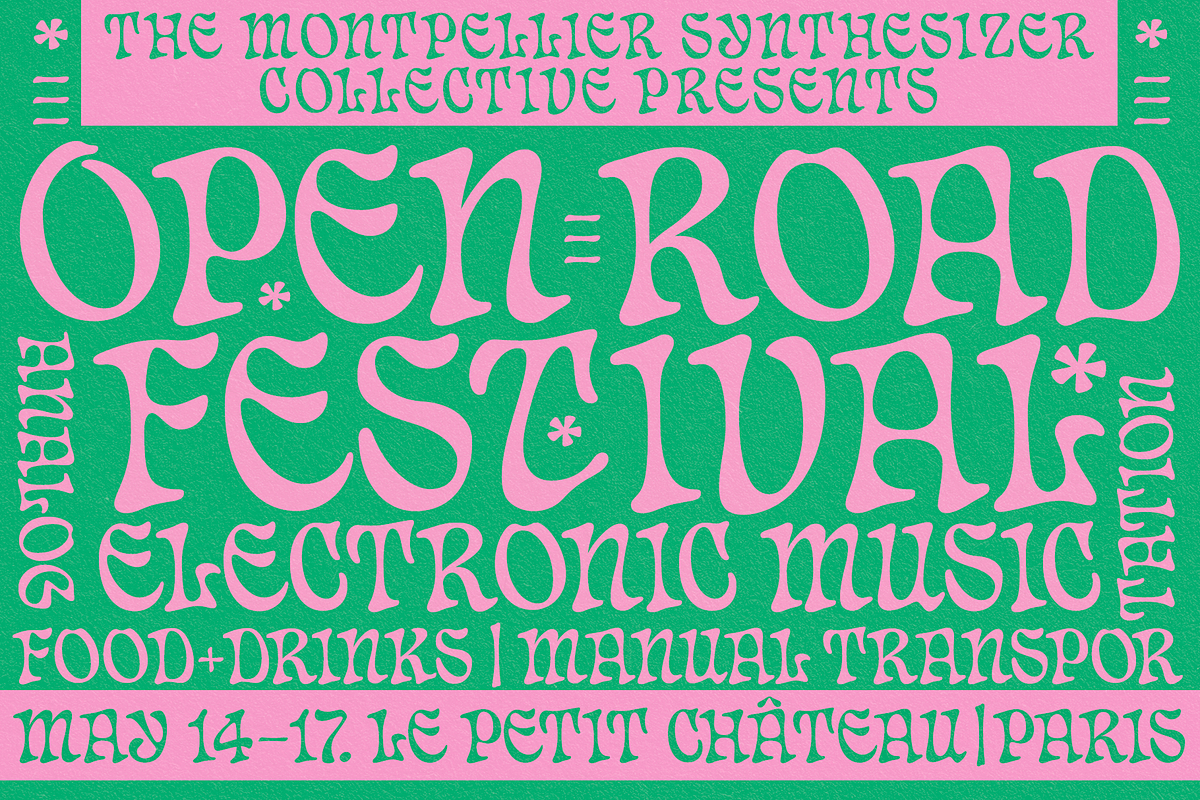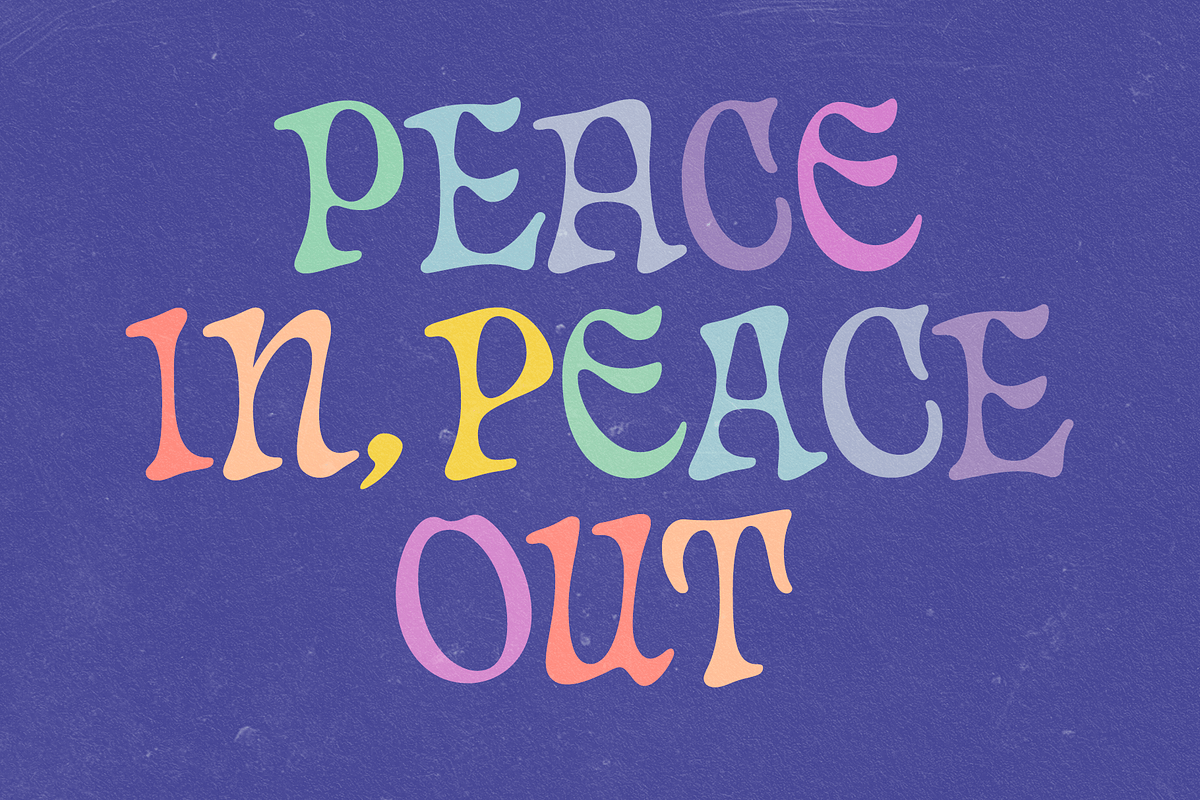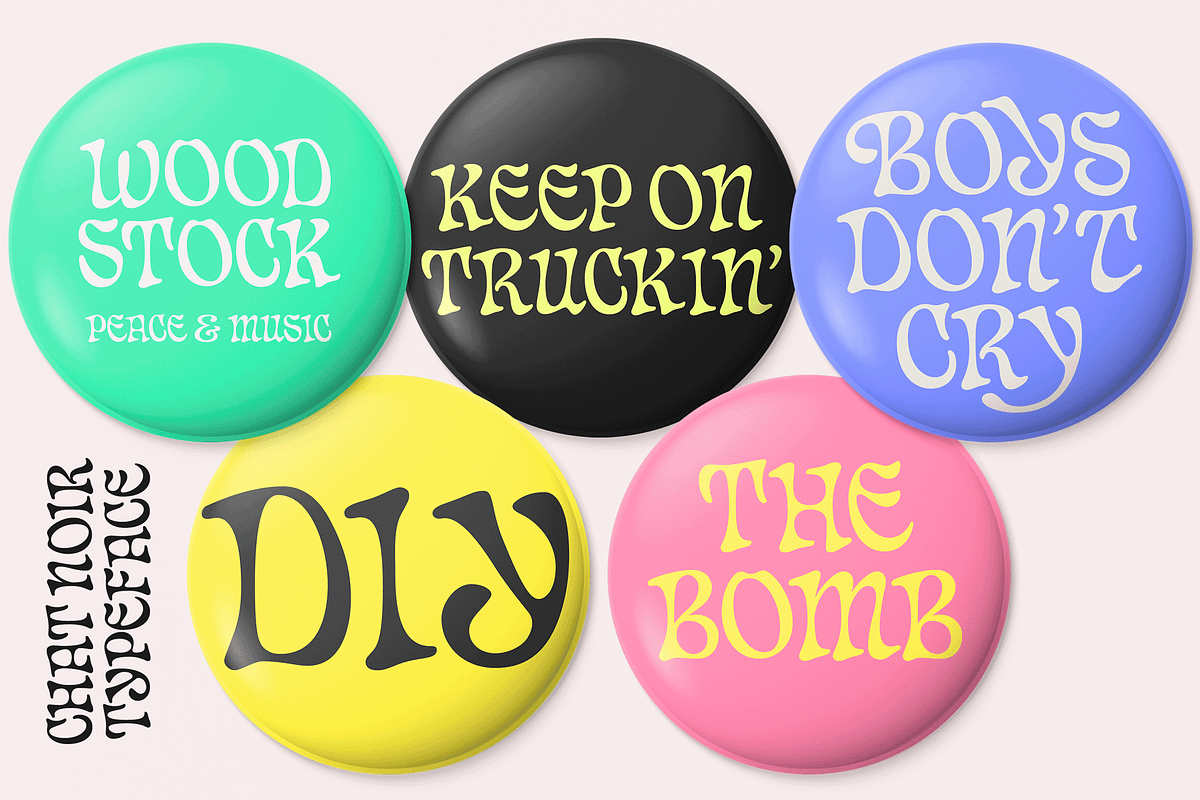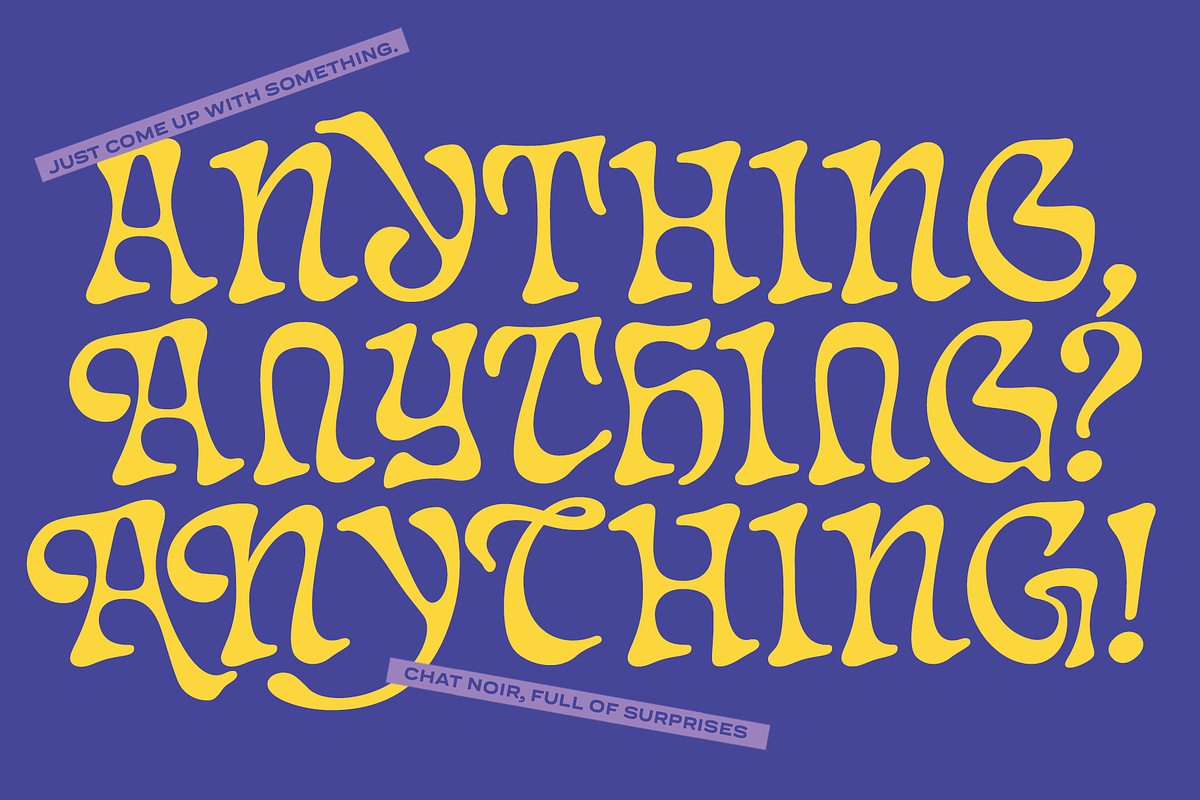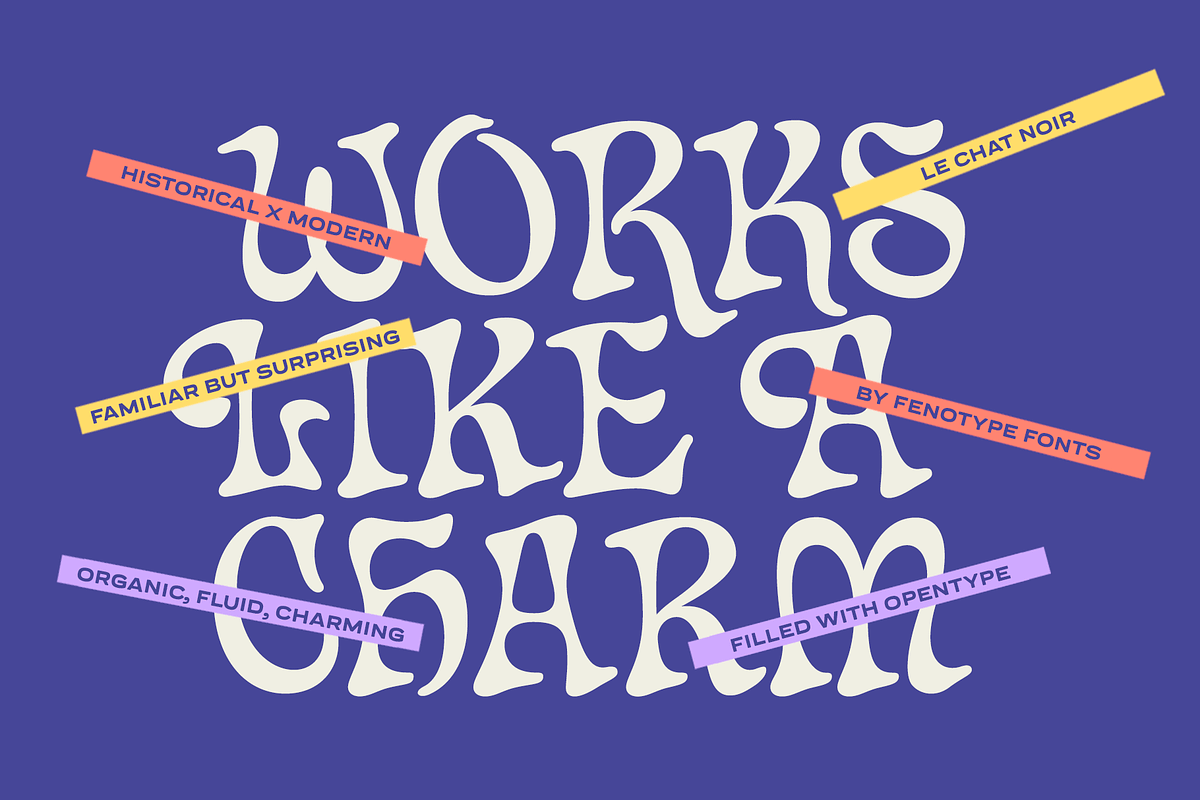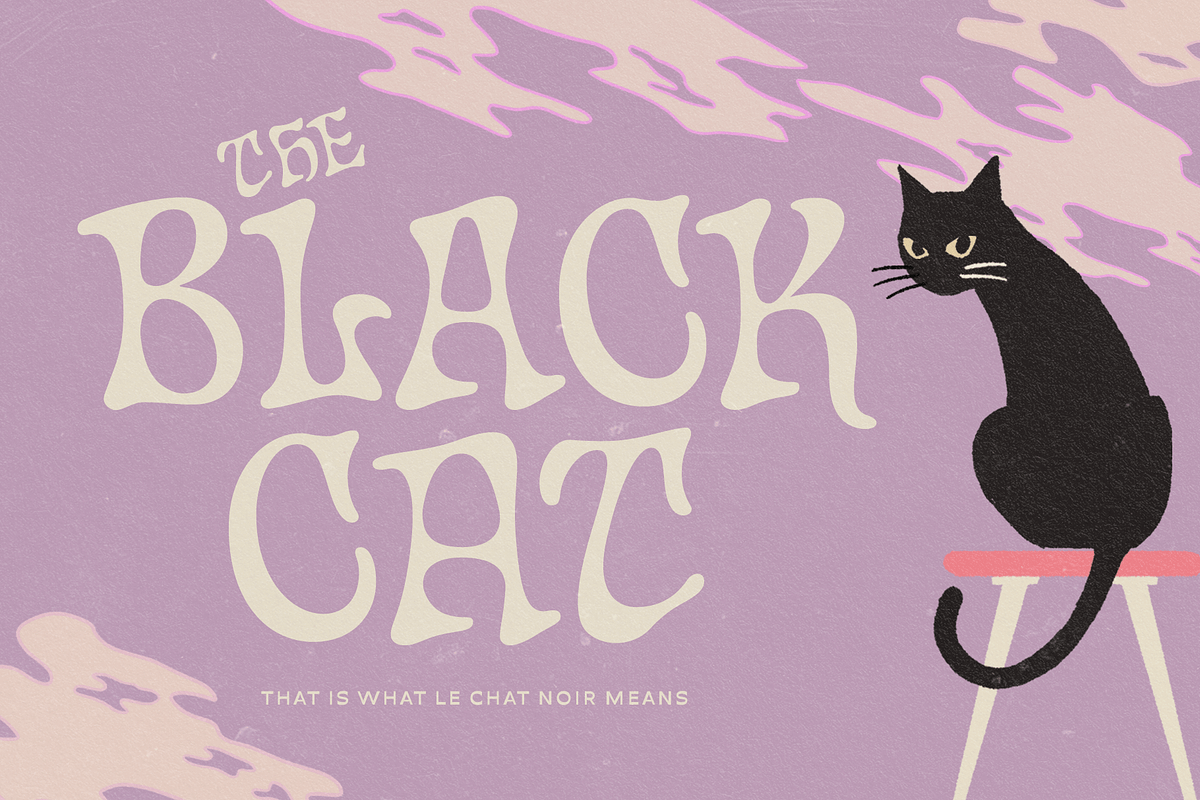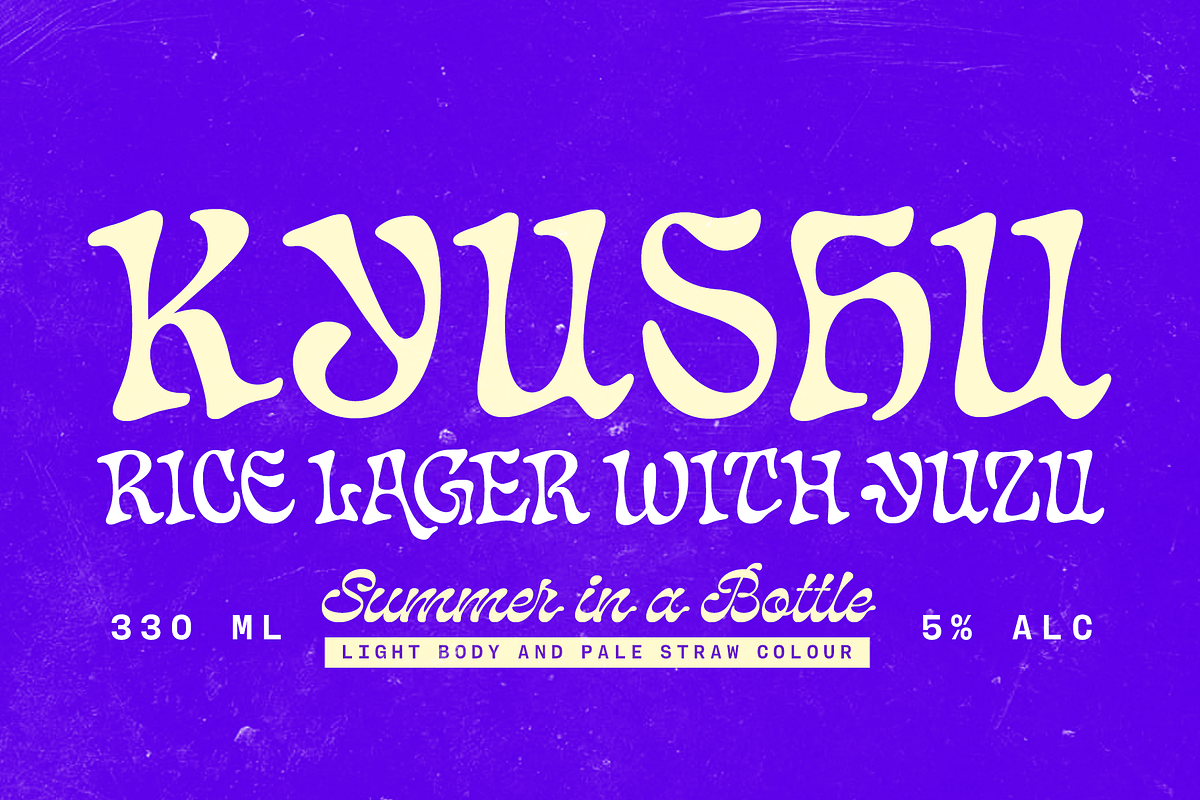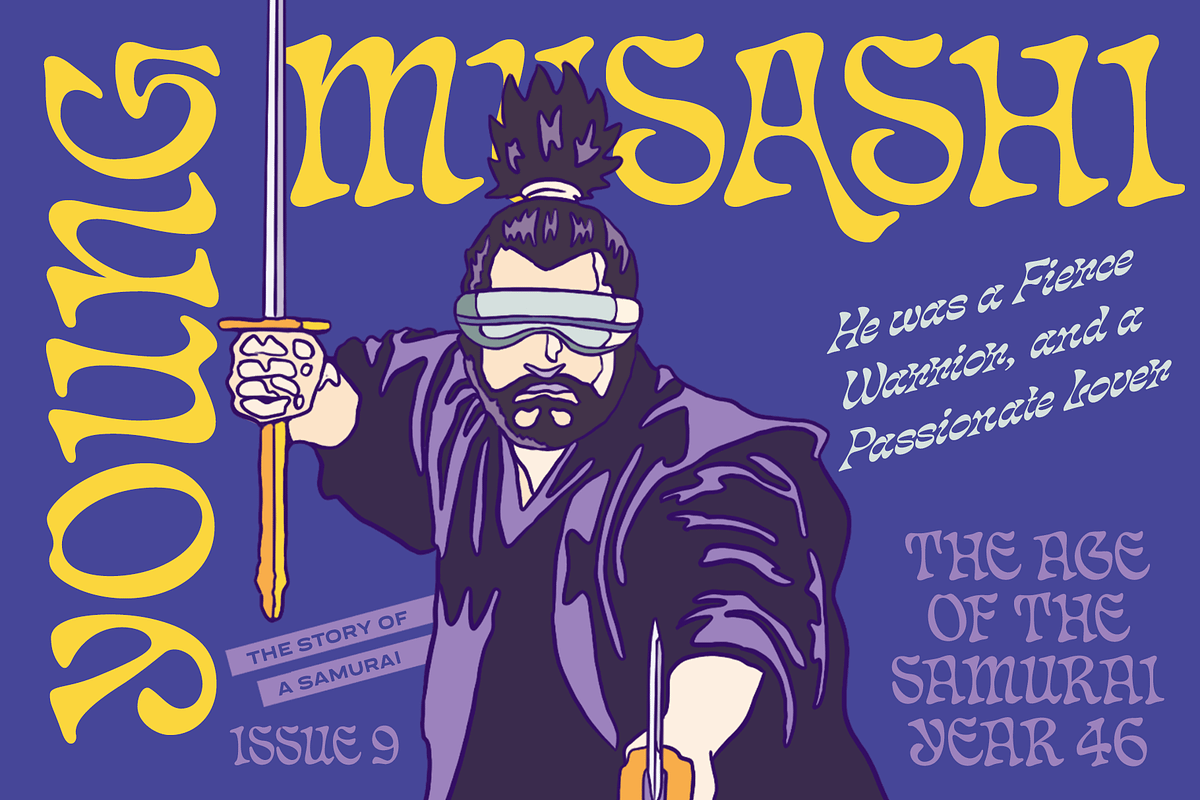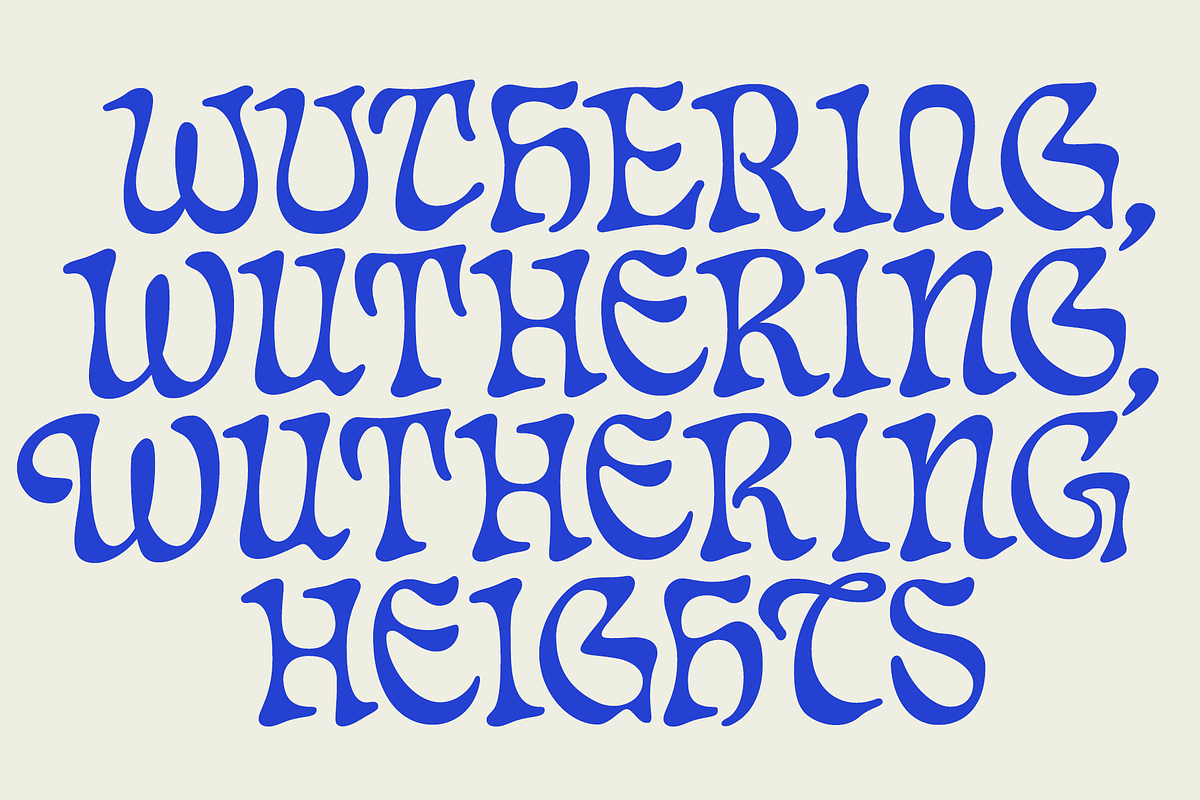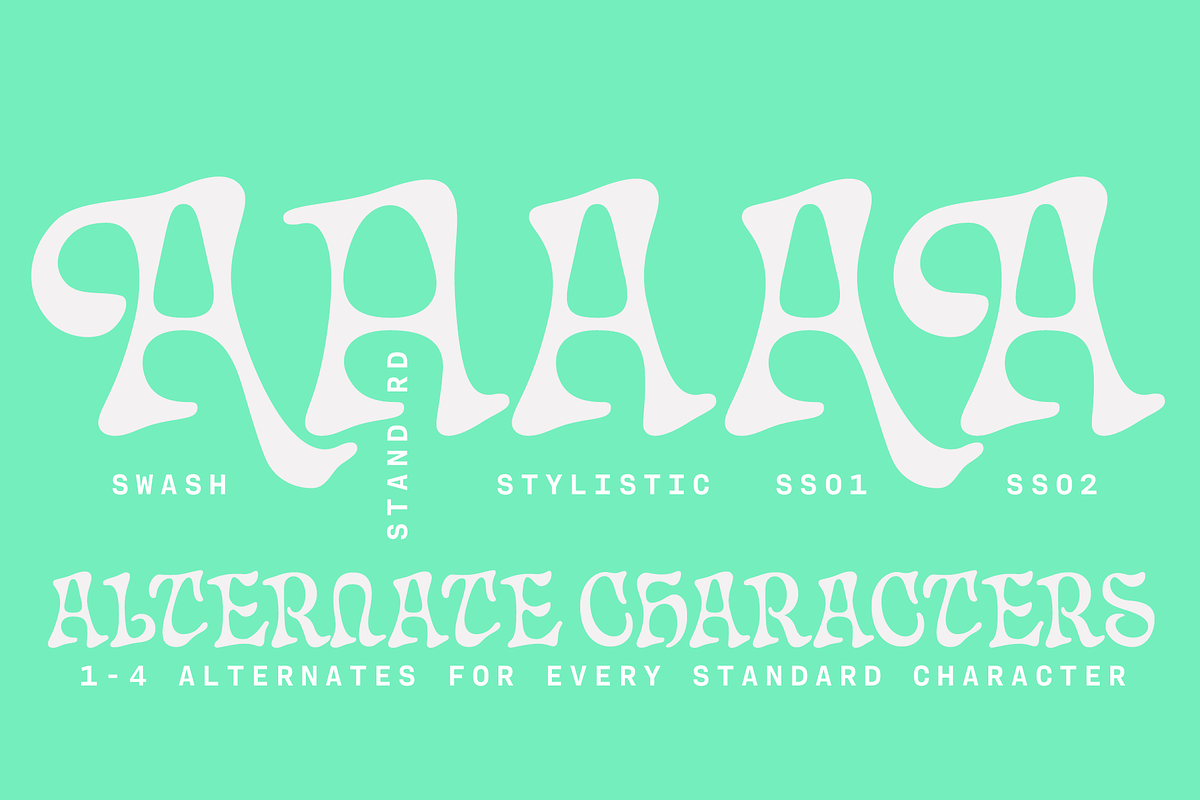
Chat Noir - Art Nouveau Font
Le Chat Noir, The Black Cat, is an art nouveau inspired serif typeface with a touch of calligraphy combined with soft, modern features. Chat Noir is a font for art shows, band posters, LP-covers, book jackets and T-shirts. Chat Noir contains a wide language support. In addition, Chat Noir is packed with plenty of Alternate Characters set in lowecase characters in Stylistic Alternates, Swash, and Stylistic Sets 1-3.